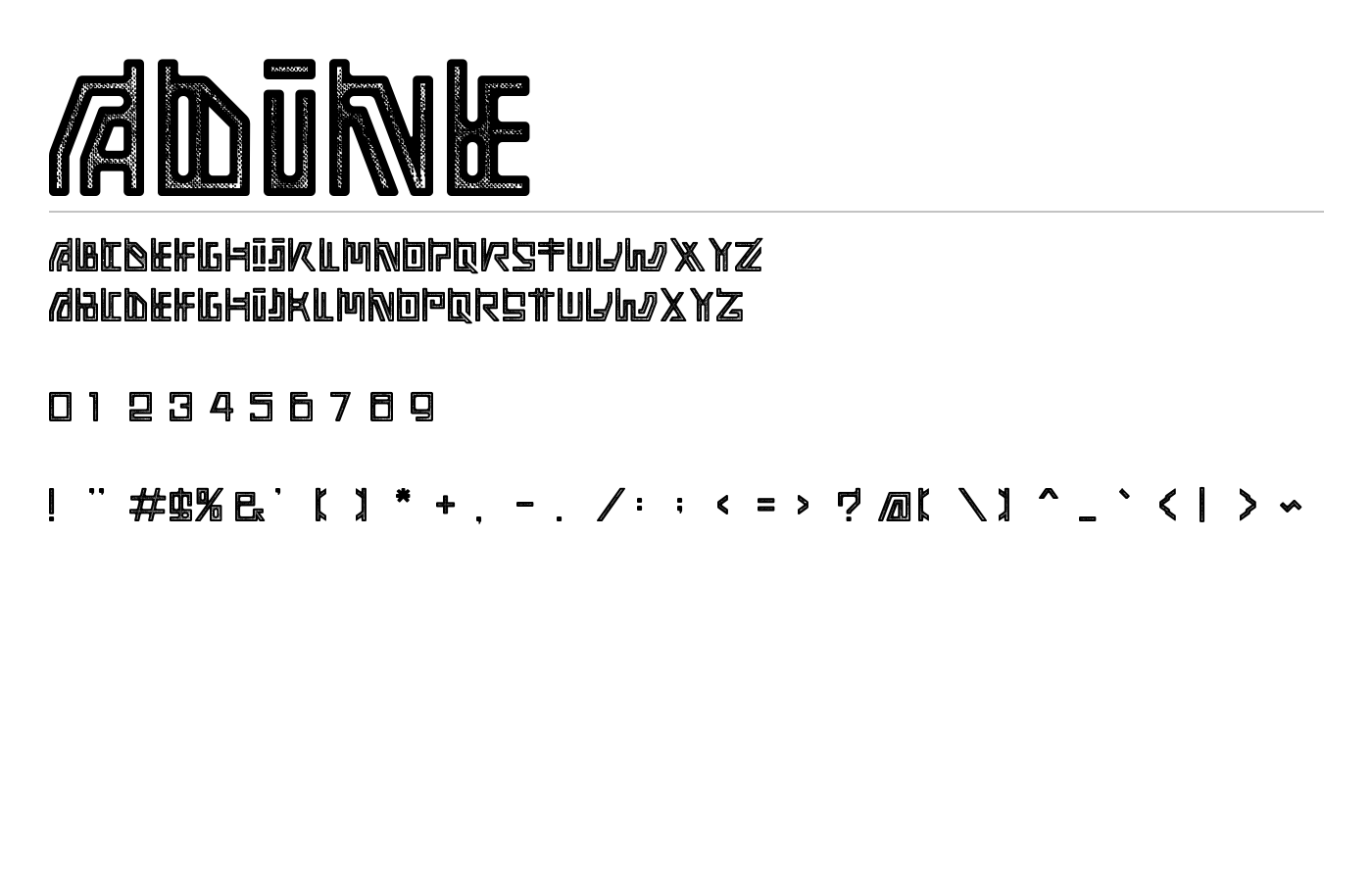
Adine is a distinctive sans serif font with a futuristic, geometric style characterized by its sharp angles and narrow, condensed letterforms. Its low contrast strokes and unique character shapes give it a tech-savvy, modern personality, making it ideal for creative branding, digital interfaces, and edgy headlines. This font works best where a bold, unconventional statement is needed, adding a high-tech and avant-garde feel to designs.
Adine Font